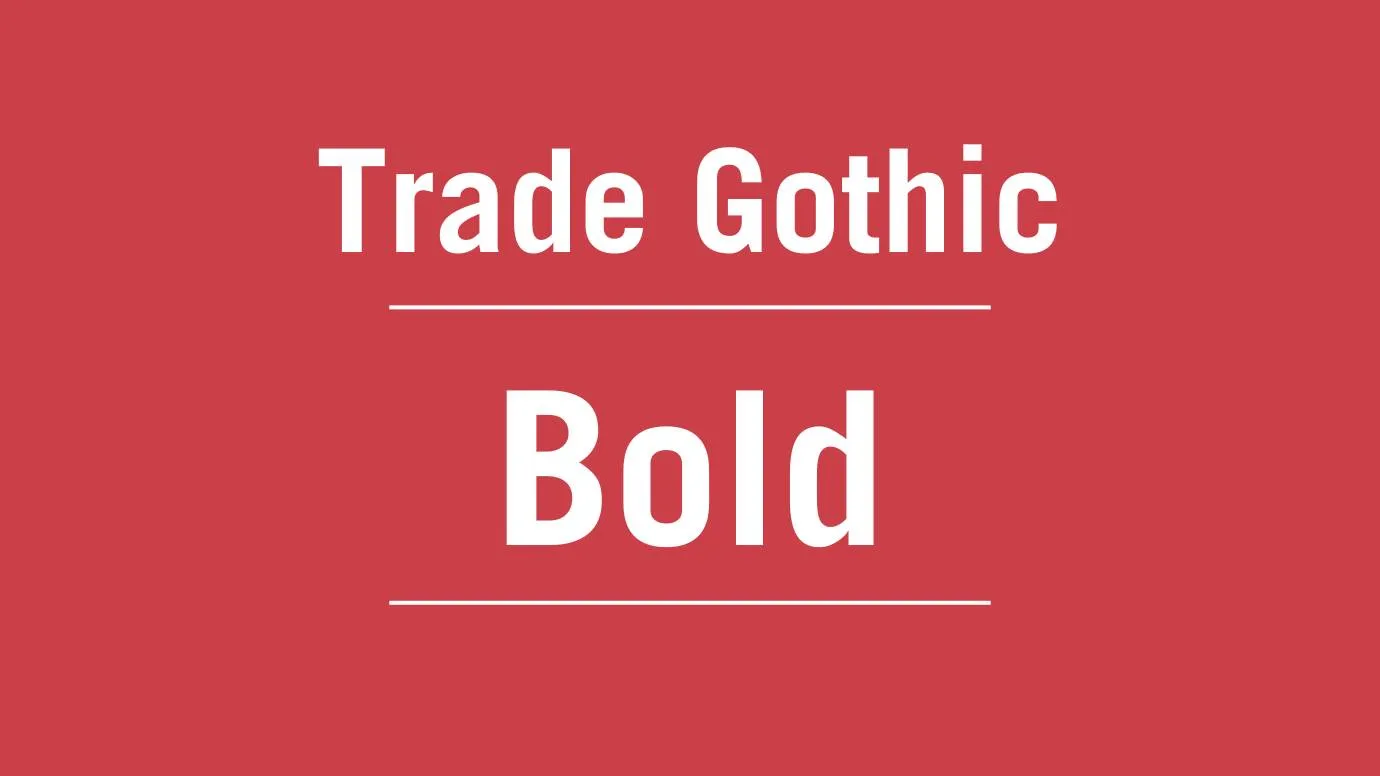
Trade Gothic Bold Font is a member font of the prominent typeface that is known as Trade Gothic font. This font is presenting a bold stylish look that is suitable for headlines, titles, product titling, and logos. Jackson Burke is a famous type designer who took charge of its creation and published it in 1948 through Linotype foundry.
This font provides great eligibility to designs due to its clean texturing and it can be used manually for personal projects..
NameTrade Gothic Bold Font
DesignerJackson Burke
FoundryLinotype Foundry
StyleSans serif
Date Released1948